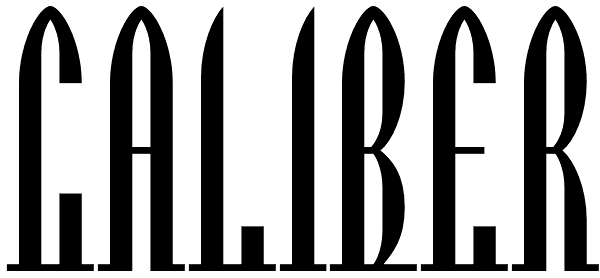
Caliber
A highly decorative slab-serif that is combat ready. The steady contrast and sharp angles make it great for titles and posters. Mechanical and aggressive but can easily be used for static background text and shapes. May keep Bodoni and Niagara Solid...